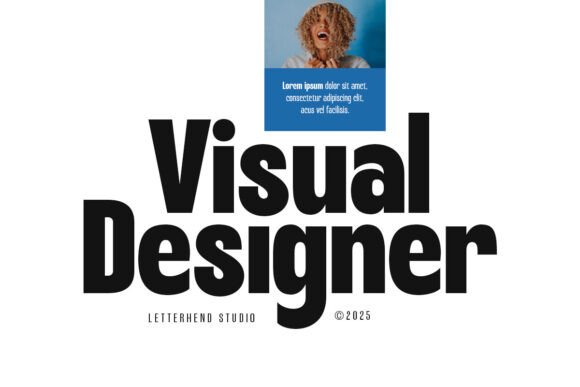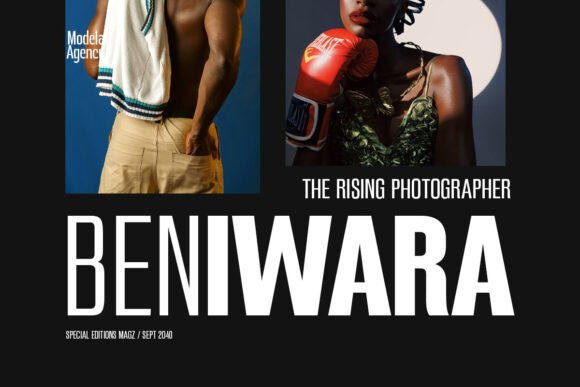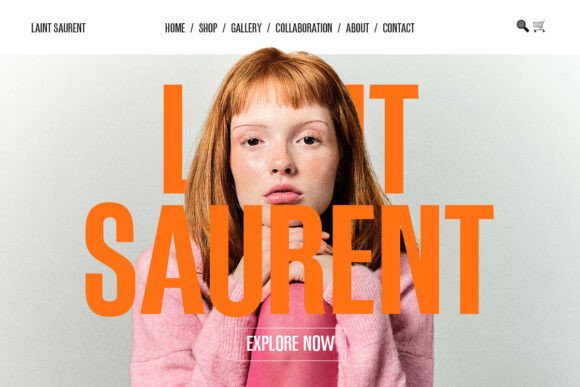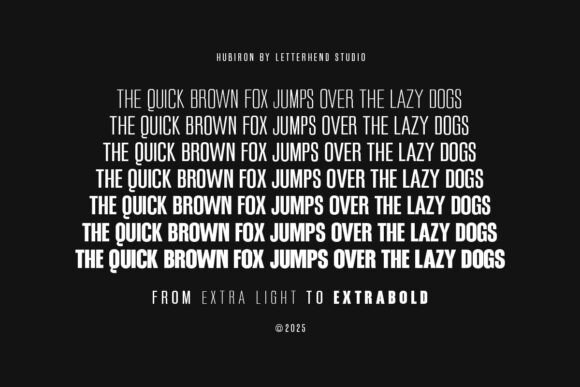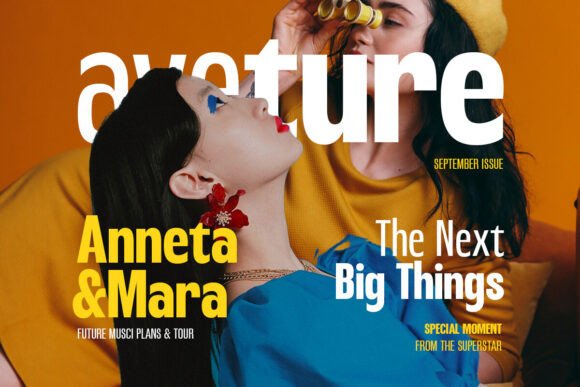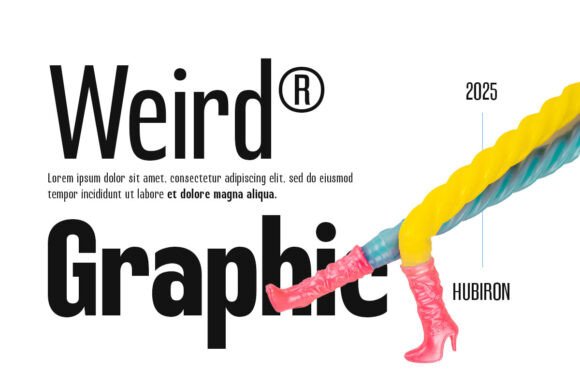
The Perfect Font for Making a Statement
As designers, we’ve all been there – staring at a blank canvas, trying to find the perfect font to bring our vision to life. The search can be overwhelming, but what if we told you there’s a font that can elevate your designs to the next level? Introducing the Hubiron Font, a bold and modern condensed sans-serif font designed to make a strong visual impact.
With its tall, narrow letterforms and clean geometric structure, the Hubiron Font is perfect for high-impact designs that require a contemporary and authoritative presence. Whether you’re working on a branding project, creating a website, or designing a marketing campaign, this font is sure to deliver. And with 7 weight styles to choose from, you’ll have the flexibility to tailor your design to suit your needs.
Key Features of Hubiron Font
- Font Family: Hubiron Font is available in 3 different font families – Regular, Bold and Italic.
- Unique Characteristic: The Hubiron Font features a unique blend of modern and vintage elements, making it ideal for creative and design-driven applications.
Hubiron Font Review
Overall, I think Hubiron Font is a solid choice for any designer looking for a modern sans-serif font. ✨ It’s clean, elegant, and works well for both body and display text. The font’s subtle curves and rounded edges make it easy to read, even at smaller font sizes.
- ✨ Clean and modern design: Hubiron Font is perfect for creating a sleek and contemporary look.
- ✨ Good legibility: The font is easy to read, even at smaller font sizes.
- ✨ Versatile: Hubiron Font works well for both body and display text.
- ⚠️ Limited font weights: Hubiron Font only comes in a few weights, which may limit its use in certain contexts.
- ⚠️ Not suitable for script or handwritten text: Hubiron Font is a sans-serif font, so it may not be the best choice for text that requires a more personal or cursive feel.
Overall, I think Hubiron Font is a great choice for designers who want a clean and modern sans-serif font. While it may have some limitations, it’s a solid choice for a wide range of projects.
Getting the Most Out of the Hubiron Font
For the best results, use the Hubiron Font in conjunction with other modern, clean fonts. Experiment with different font sizes and styles to create visual interest. Avoid using the Hubiron Font in small sizes or in low-contrast designs.
The Hubiron Font is ideal for:
- Business and corporate branding.
- Modern and minimalist designs.
- Website headers and titles.
- Print materials, such as brochures and flyers.
Alternatives to Hubiron Font for Designers
Montserrat is a sans-serif font that was designed to be modern and sleek. It is perfect for use in digital media, such as websites and mobile apps, as well as in print materials like business cards and brochures.
Montserrat is a more versatile font compared to Hubiron Font, as it comes in multiple weights and styles, making it suitable for a wide range of applications.
2. Inter Font
Inter is a geometric sans-serif font that is designed to be highly legible and versatile. It is ideal for use in digital media, such as websites and mobile apps, as well as in print materials like books and magazines.
Inter is a more modern and minimalist font compared to Hubiron Font, with a focus on simplicity and clarity.
Lato is a sans-serif font that is designed to be elegant and sophisticated. It is perfect for use in digital media, such as websites and mobile apps, as well as in print materials like business cards and brochures.
Lato is a more elegant and refined font compared to Hubiron Font, with a focus on sophistication and luxury.
Open Sans is a sans-serif font that is designed to be highly legible and versatile. It is ideal for use in digital media, such as websites and mobile apps, as well as in print materials like books and magazines.